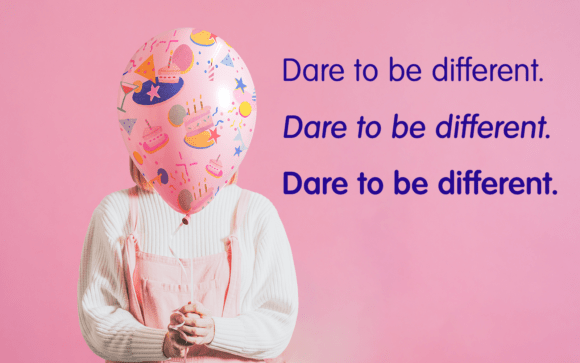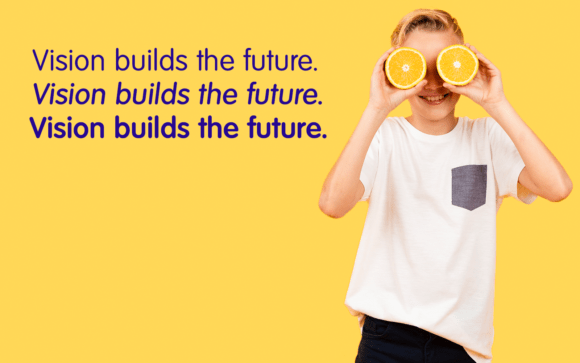
Introduction to Neolina Font
Neolina is a modern, rounded sans serif font that radiates friendliness and simplicity.
Its smooth curves and clean structure make it perfect for everything from branding and posters to childrenโs content and minimalist designs Whether youโre crafting a heartfelt message or a bright, optimistic logo, Neolina adds a soft and professional touch.
Key Features of Neolina Font
Why Choose Neolina Font?
Neolina Font offers exceptional quality and versatility, making it a valuable addition to your design toolkit. Whether you’re creating for personal projects or commercial use, Neolina Font delivers professional results.